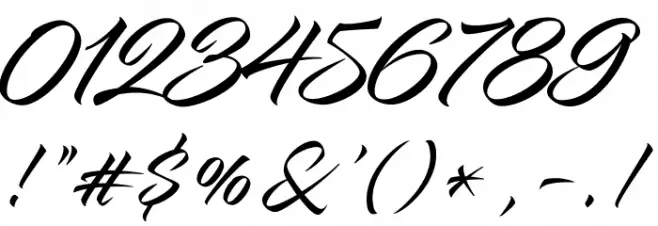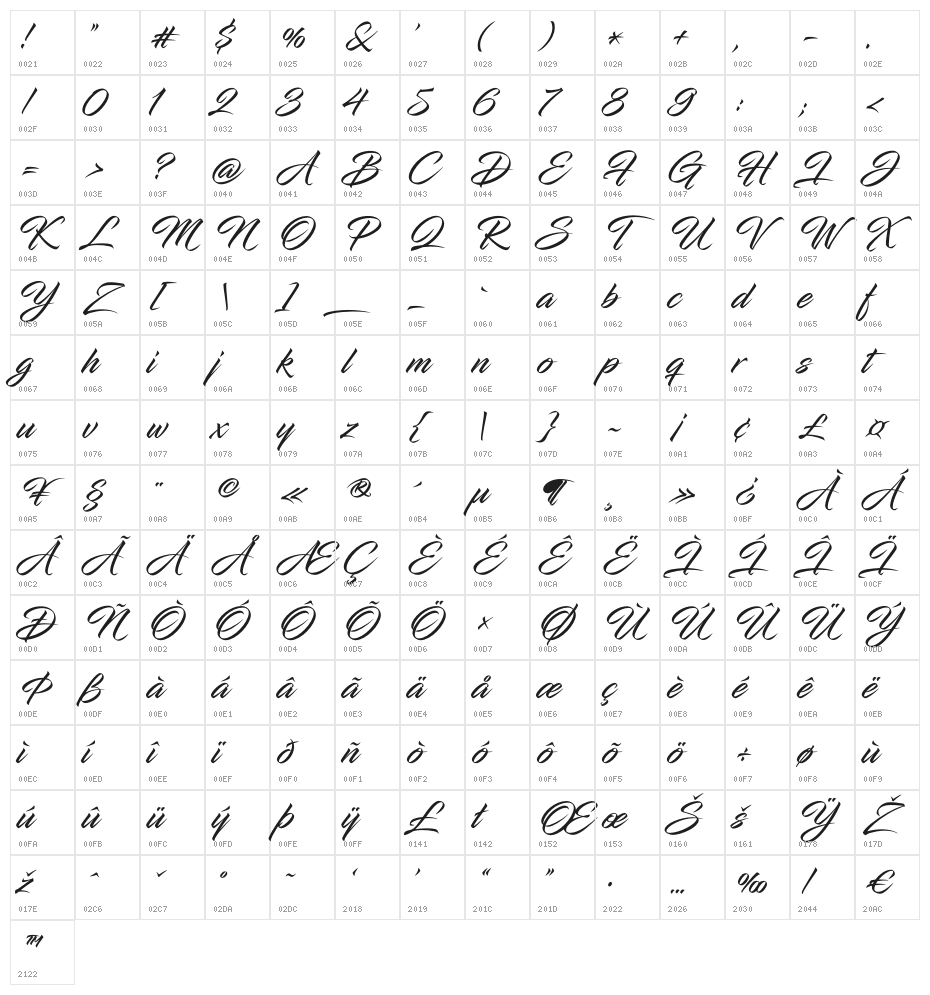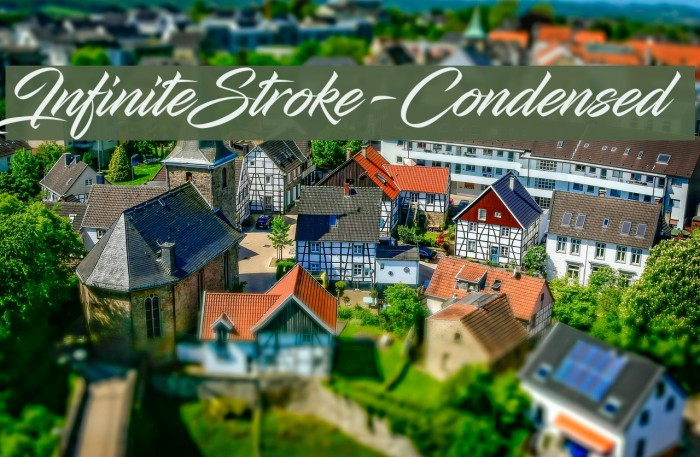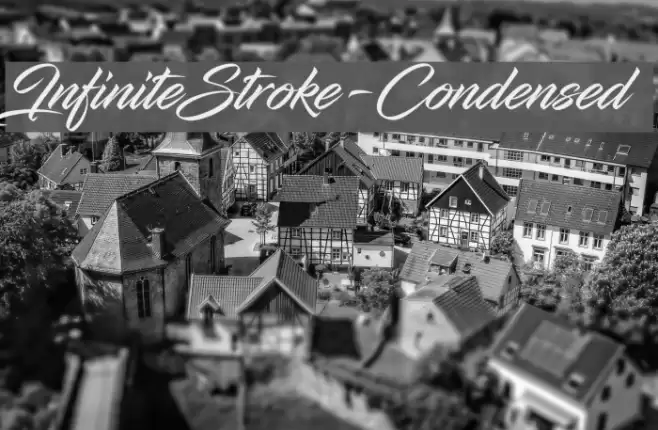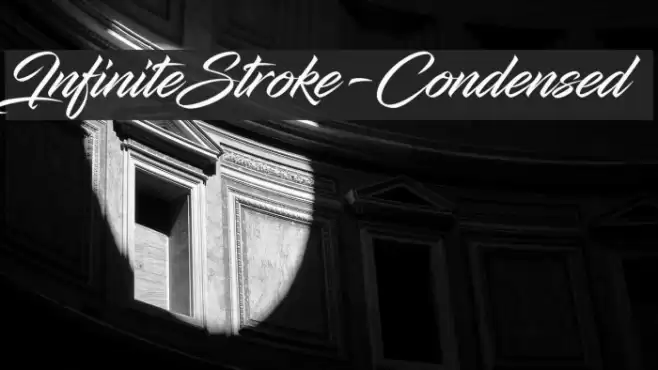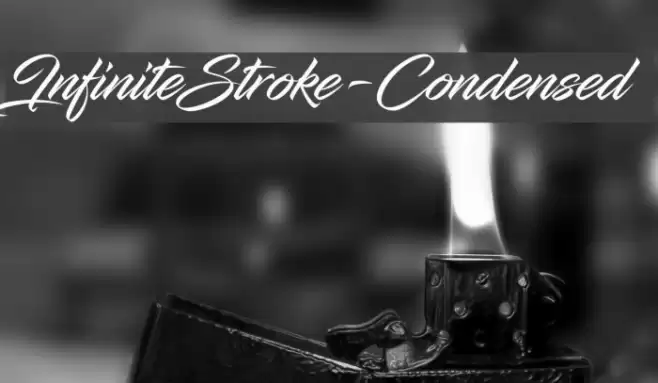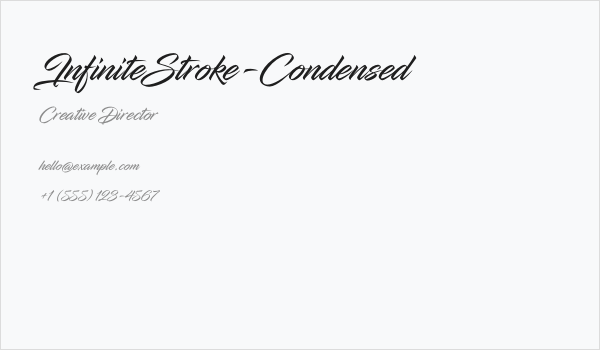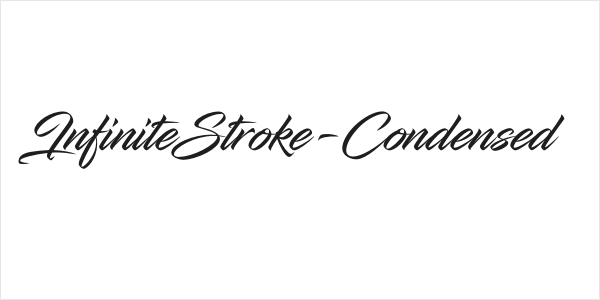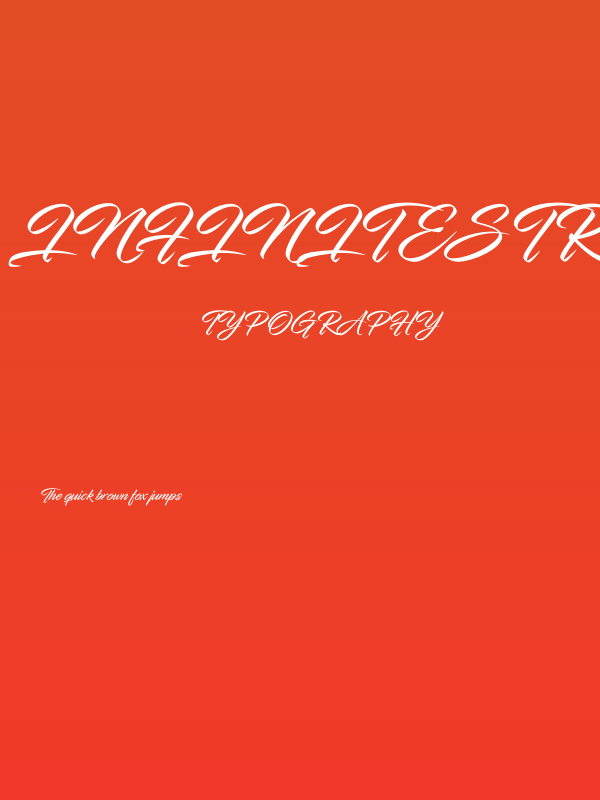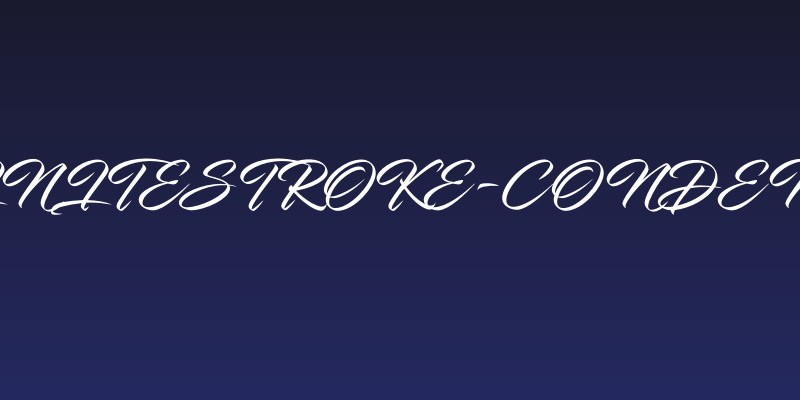
InfiniteStroke-Condensed Font
InfiniteStroke-Condensed Description
This font features an elegant and flowing script style, characterized by its cursive, handwritten appearance. The letters are interconnected with smooth, sweeping strokes, giving it a dynamic and fluid look. The uppercase letters are ornate and slightly larger, while the lowercase letters maintain a consistent flow. The numbers and special characters are designed to match the overall aesthetic, with similar curves and angles. This font exudes a sense of sophistication and grace, making it suitable for formal and creative applications.
| Proposed Projects | Ideal for wedding invitations, greeting cards, branding, and elegant logo designs. |